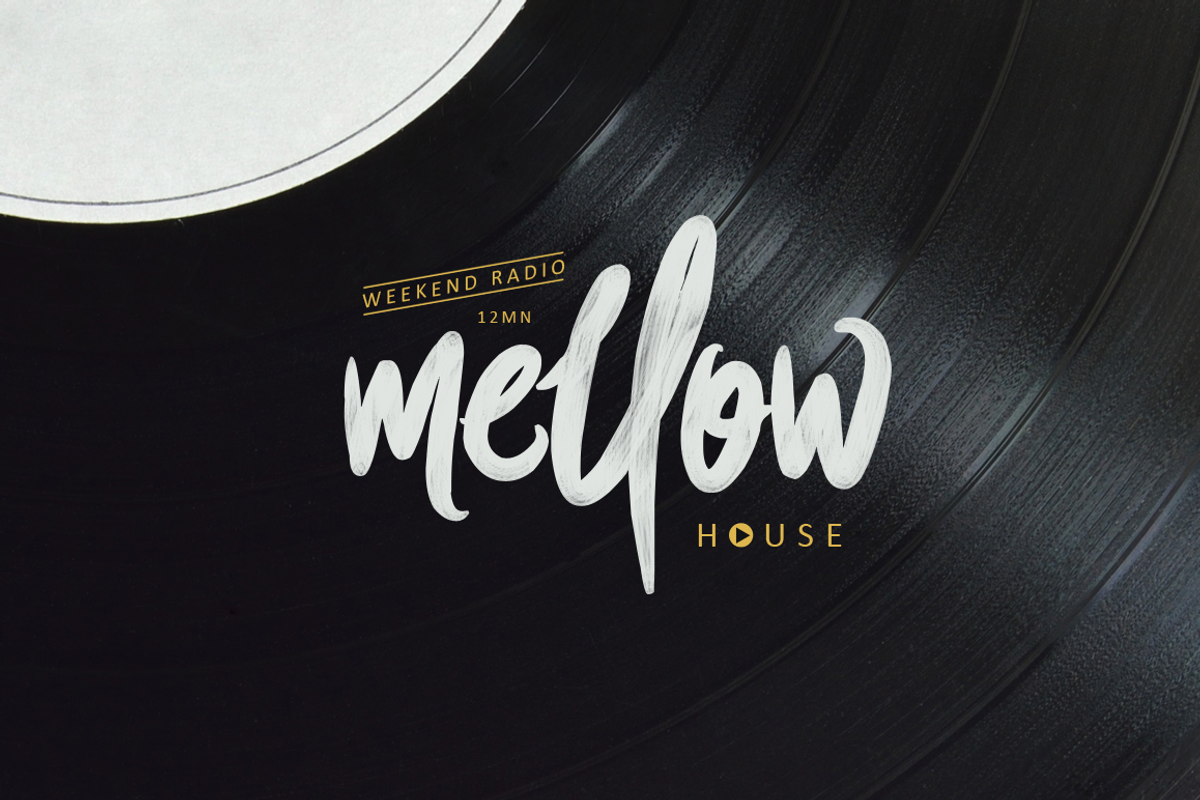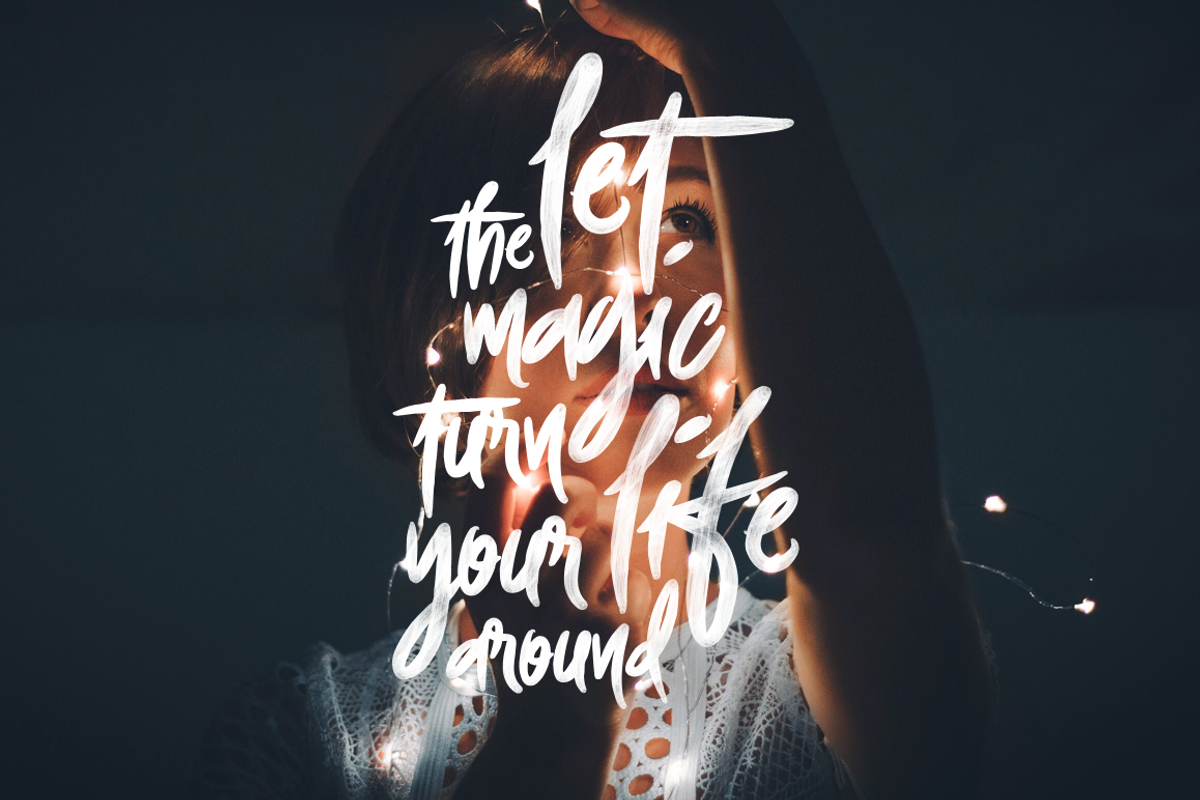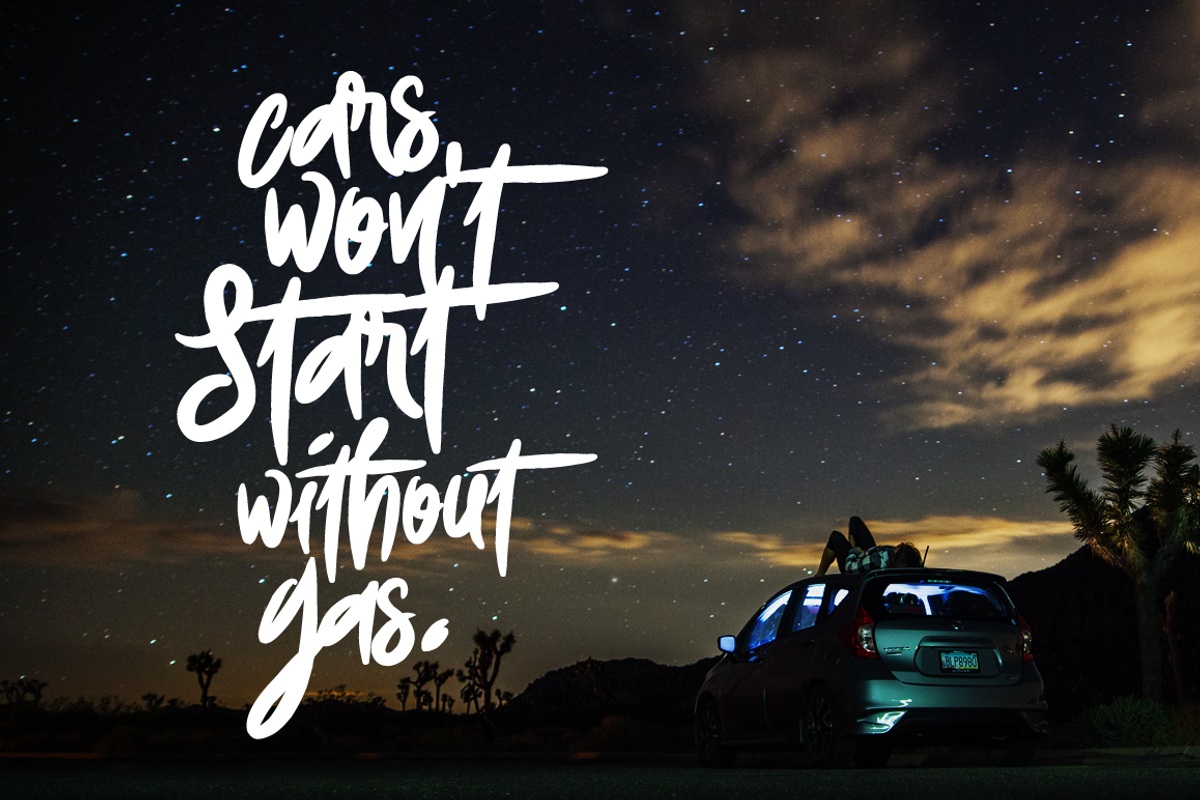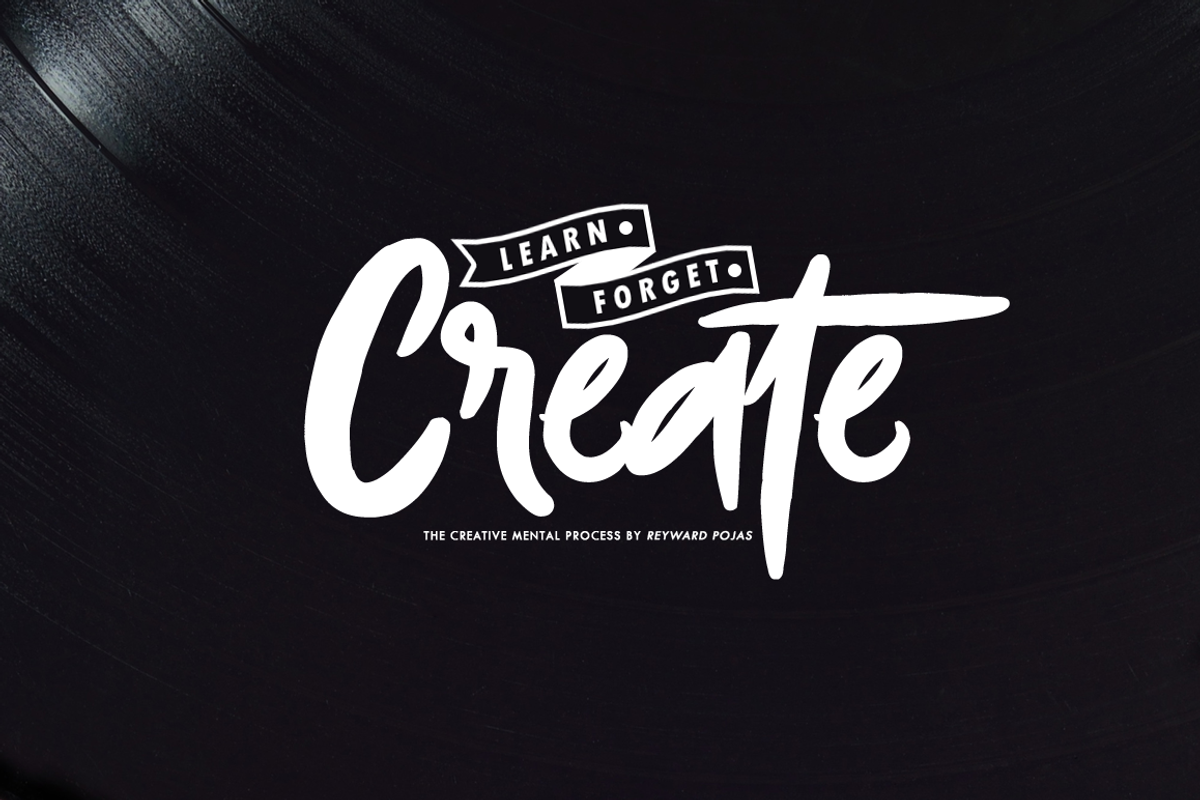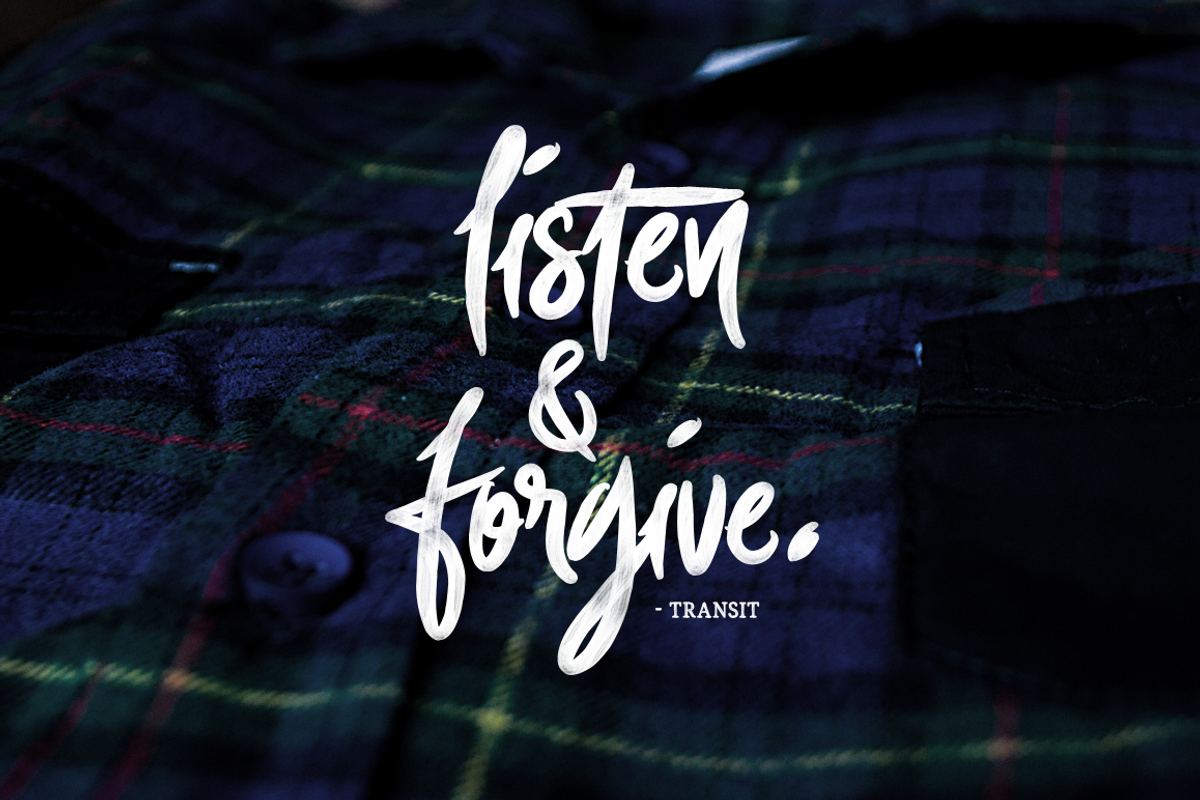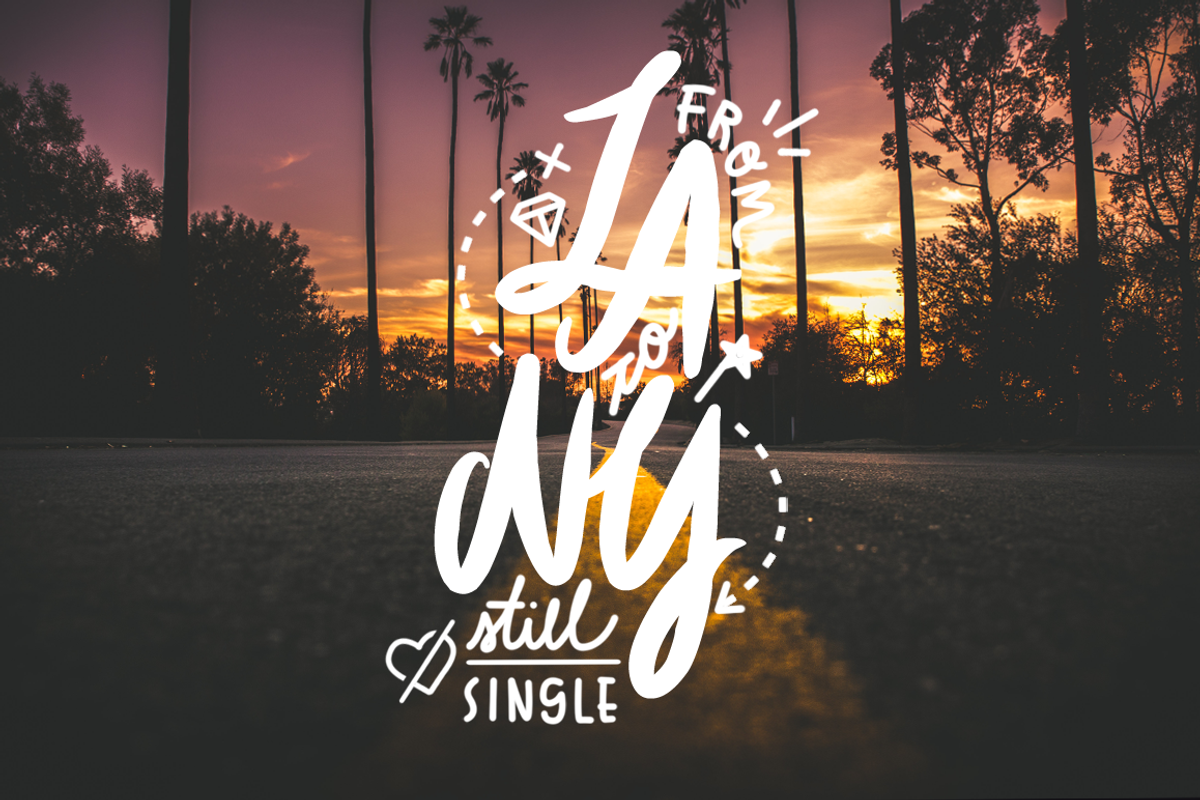
Foxing Font + PS Action
Foxing Font + PS Action by The Branded Quotes is a font selected for branding, posters, packaging, typography.
Why Foxing Font + PS Action is worth a look
Foxing Font + PS Action by The Branded Quotes fits naturally into Branding, posters, packaging, typography.